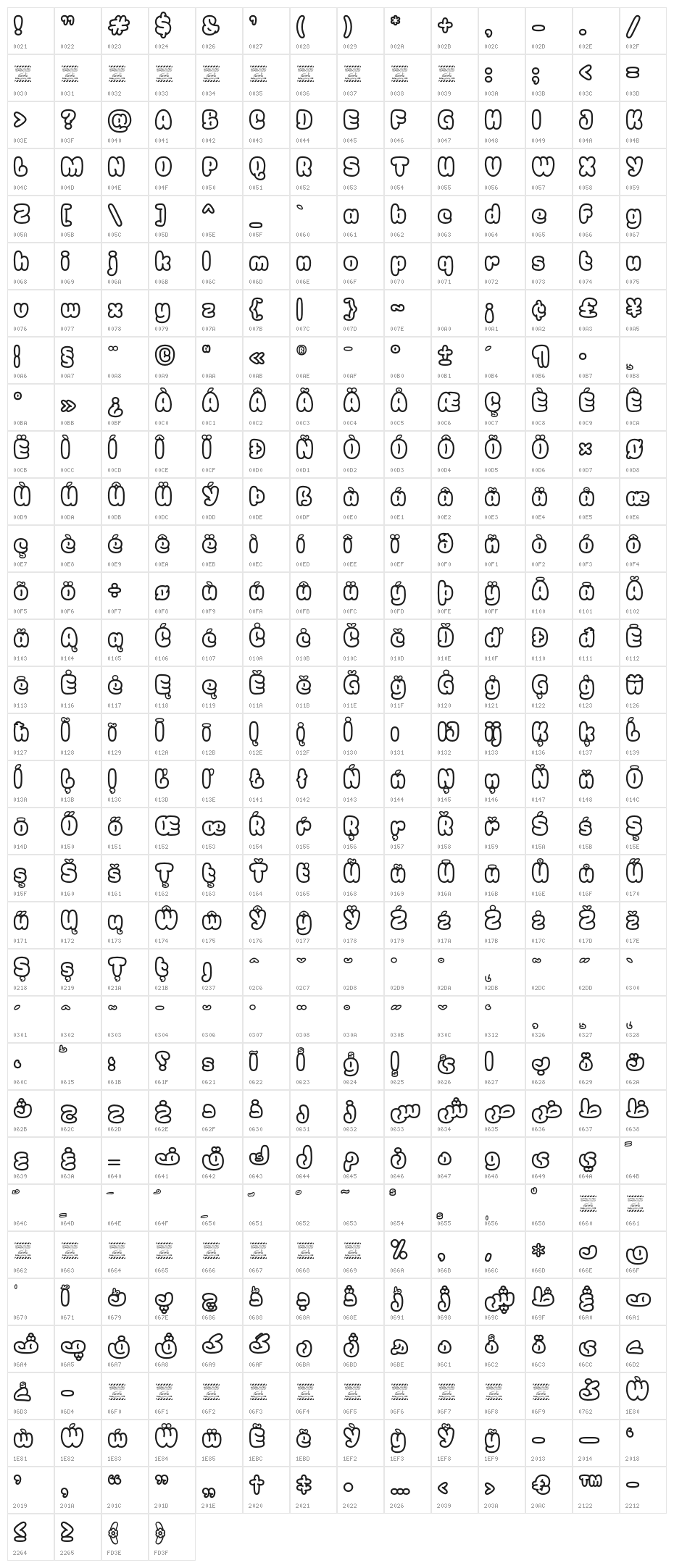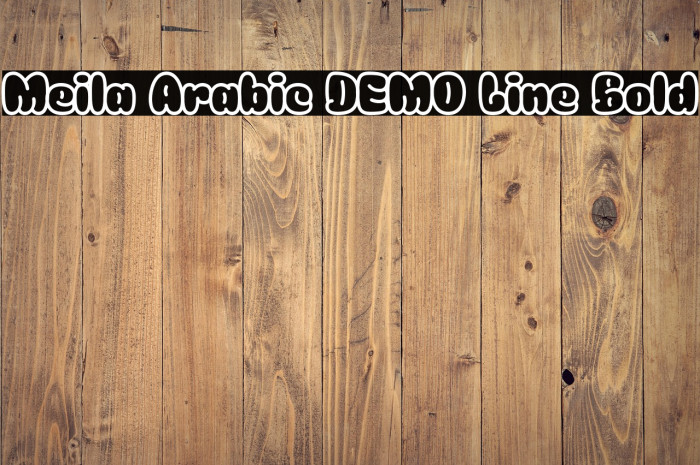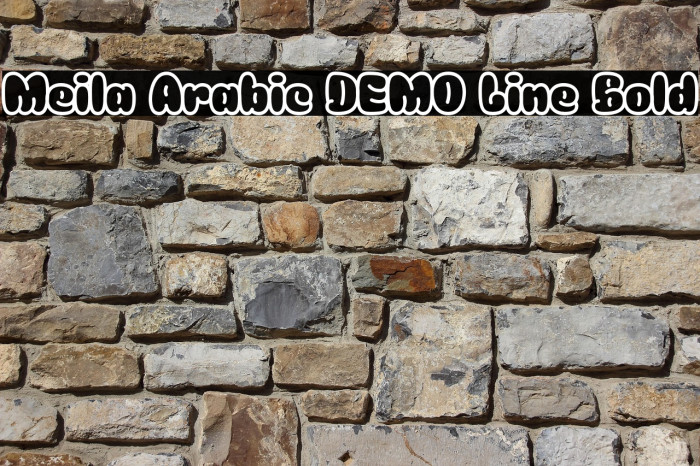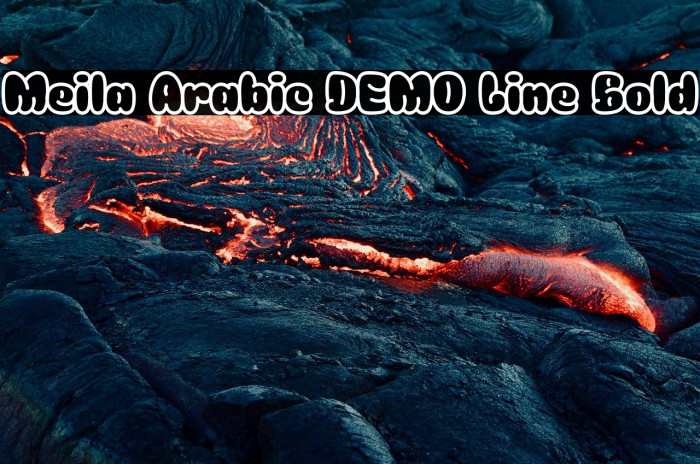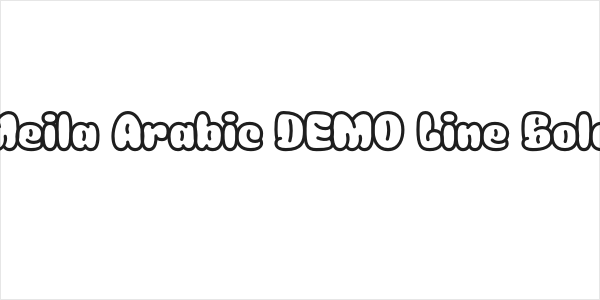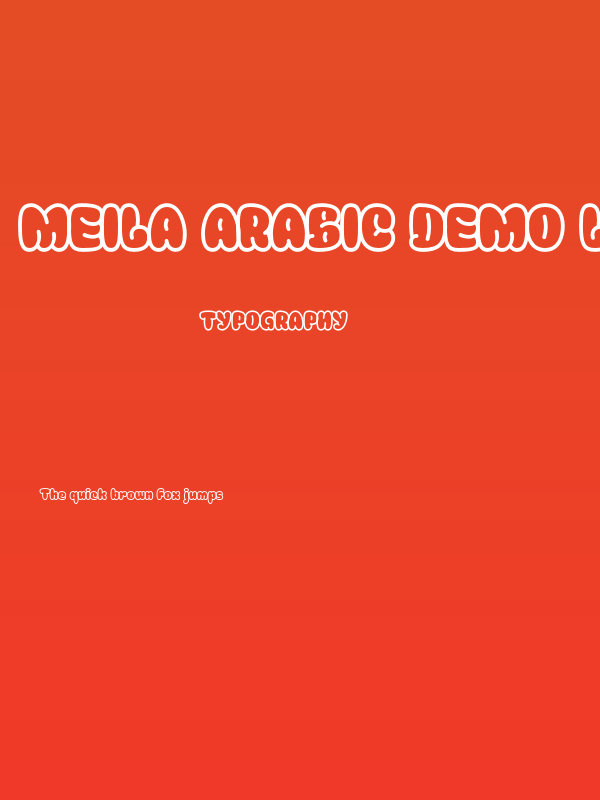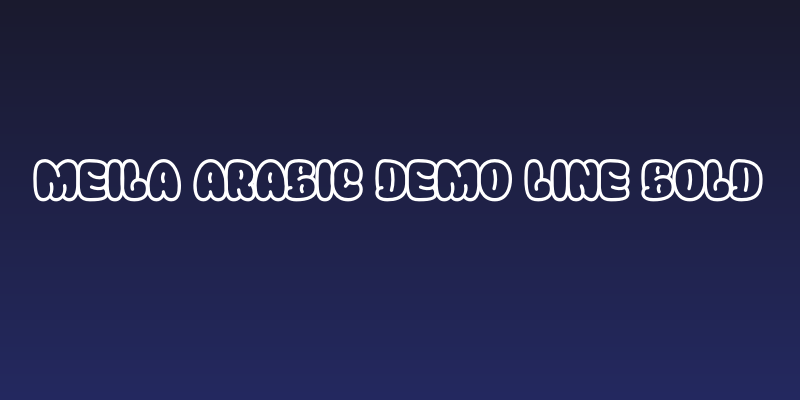
Meila Arabic DEMO Line Bold Font
Meila Arabic DEMO Line Bold Description
This playful and bold font features a bubble-like, rounded design that exudes a sense of fun and creativity. Each character is outlined with a thick line, giving it a distinct and eye-catching appearance. The letters are uniformly bold, with a consistent stroke width that enhances readability while maintaining a whimsical style. The font's rounded edges and soft curves contribute to its friendly and approachable look, making it ideal for projects that require a touch of humor or lightheartedness. The spacing between characters is relatively tight, which helps maintain visual cohesion across text. This font is particularly suitable for children's materials, playful branding, or any design that aims to convey joy and enthusiasm.